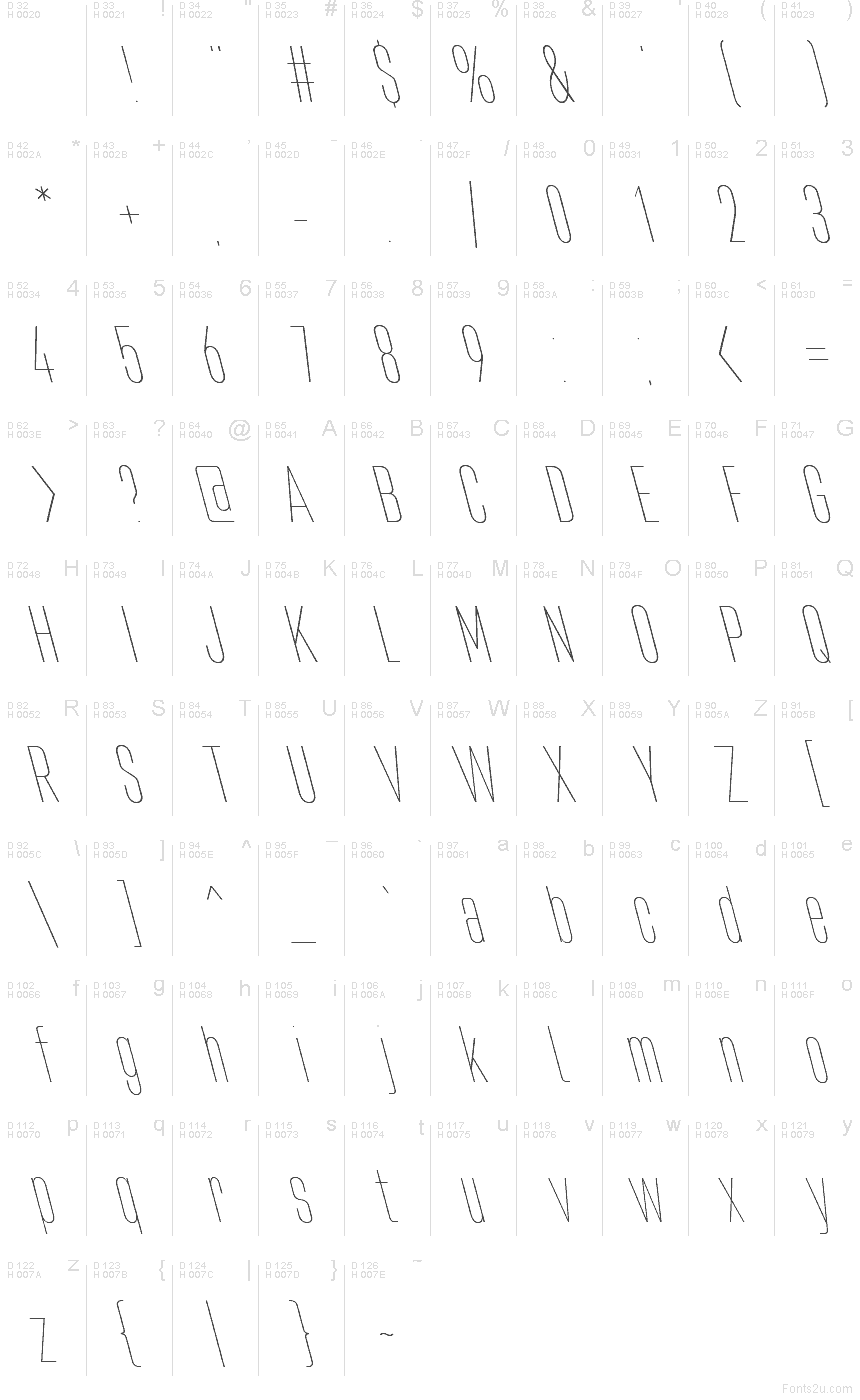
Bilgen Demo Thin Left
Bilgen Thin Left font by Bykineks is a free modern condensed sans serif typeface with a striking left-leaning posture. Its ultra-thin strokes and tall, narrow forms create a sleek, almost neon-like line that feels both futuristic and editorial. The angled structure gives every word a sense of motion, so titles and names seem to slide across the page rather than just sit there.
Using Bilgen Thin Left, your layouts gain a sharp, stylized voice that shines on fashion branding, magazine covers, album art, luxury packaging, posters, and bold social media graphics. This free font loves generous letter spacing and large sizes, where its delicate skeleton can breathe. For longer text or small captions, pair it with a sturdier weight from the Bilgen family to keep things readable while the Thin Left cut handles the drama.